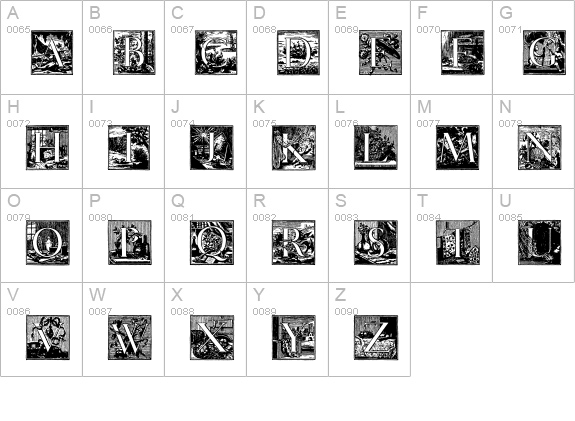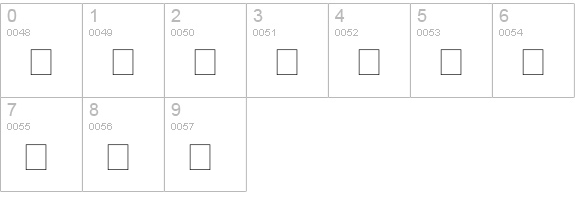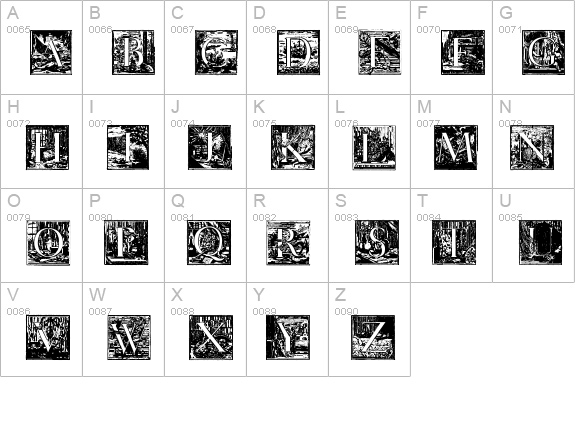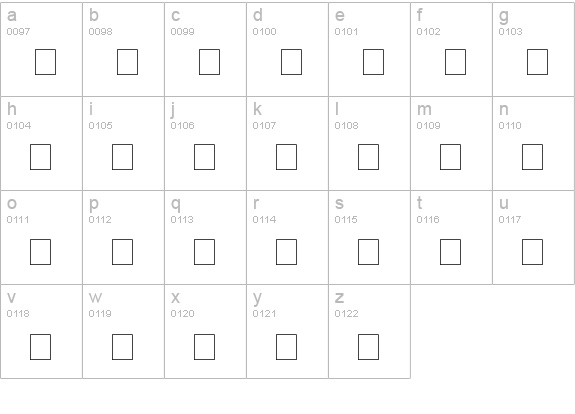
MysteriousVoyage Font Details
MysteriousVoyage font is a captivating and enigmatic typeface that exudes an aura of mystique and intrigue. With its elegant curves and intricate details, this font is sure to add a touch of mystery and sophistication to any project. Whether you're creating a poster, logo, or any other design, MysteriousVoyage font will surely make a lasting impression. The best part is that MysteriousVoyage font is completely free to download at FontsMarket.com. You can easily access this unique font and elevate your creative projects without any cost. Embrace the allure of the unknown with MysteriousVoyage font and let your imagination set sail on a mysterious voyage of creativity.